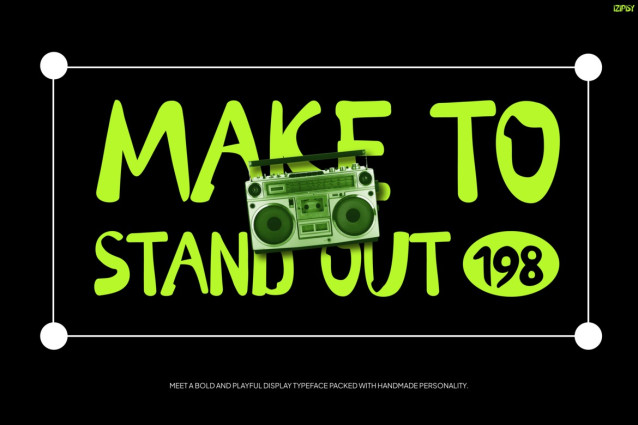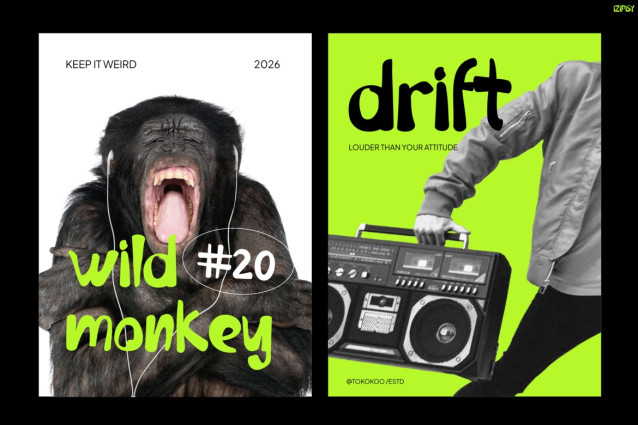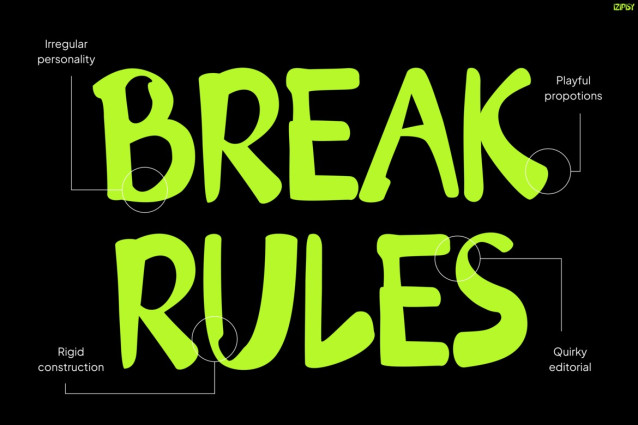
Izipisy Font
Handwriting Font Izipisy is a quirky display typeface made to bring bold personality, playful energy, and a little bit of chaos to your designs. First of all, its irregular handwritten strokes create a naturally expressive look. At the same time, rounded curves and unexpected letter shapes give every word a fun, carefree attitude. Moreover, the chunky forms make headlines pop instantly, while the casual construction keeps the overall vibe friendly and approachable. In addition, Izipisy feels perfectly at home with edgy graphics, colorful packaging, lifestyle brands, and youth-focused visuals. As a result, simple words can become eye-catching statements.
Furthermore, its distinctive character works especially well when you want your design to feel creative rather than overly polished. Therefore, Izipisy is a great pick for projects that dare to break the rules.